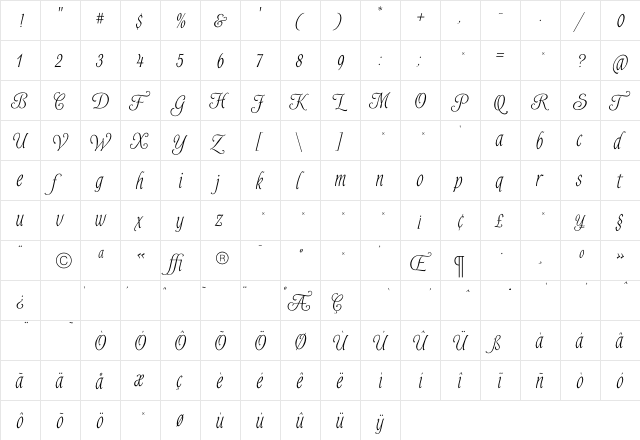
AlysLight Regular
Design Context for AlysLight Typeface
AlysLight is a composed and adaptable typeface that performs quietly and consistently across a wide range of design contexts. Its slender proportions lend an understated elegance to any composition.